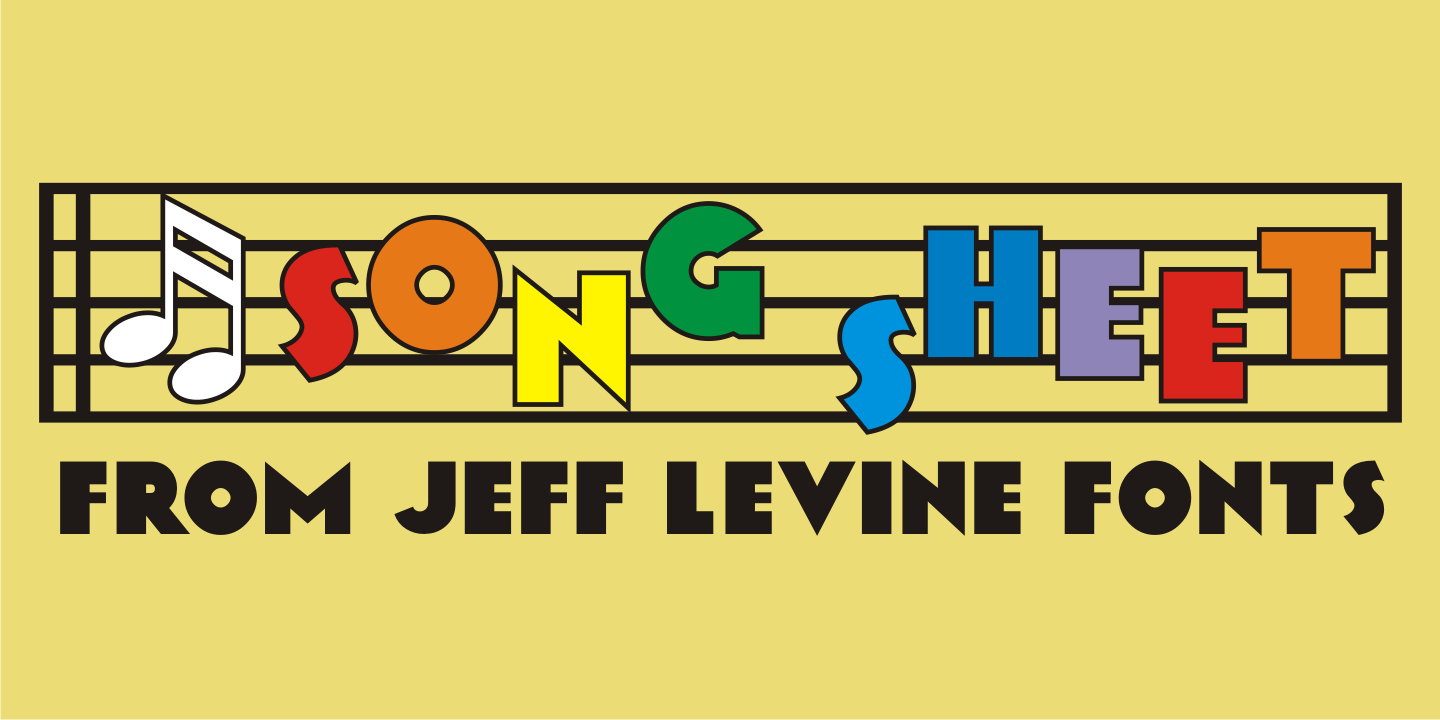
Song Sheet
Sheet music for the 1930s song 'Josephine' had its title hand lettered in a simple, bold sans design that is recreated in Song Sheet JNL. This bold sans is perfect for titling wherever strong emphasis is necessary.
Song Sheet JNL Regular by Jeff Levine Fonts